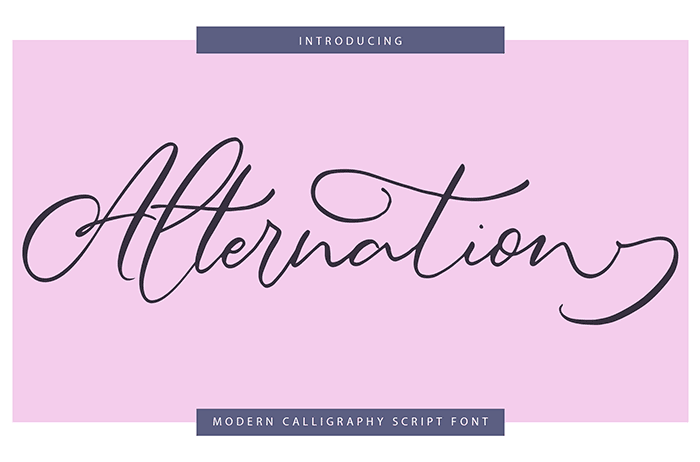
Alternation Calligraphy Font
Alternation simplifies elegance into one truly outstanding calligraphy font. It maintains its classy calligraphic influences while feeling contemporary and fresh. Thanks to Vunira Studio for sharing this font! Take a look at this portfolio for more of his stunning fonts.